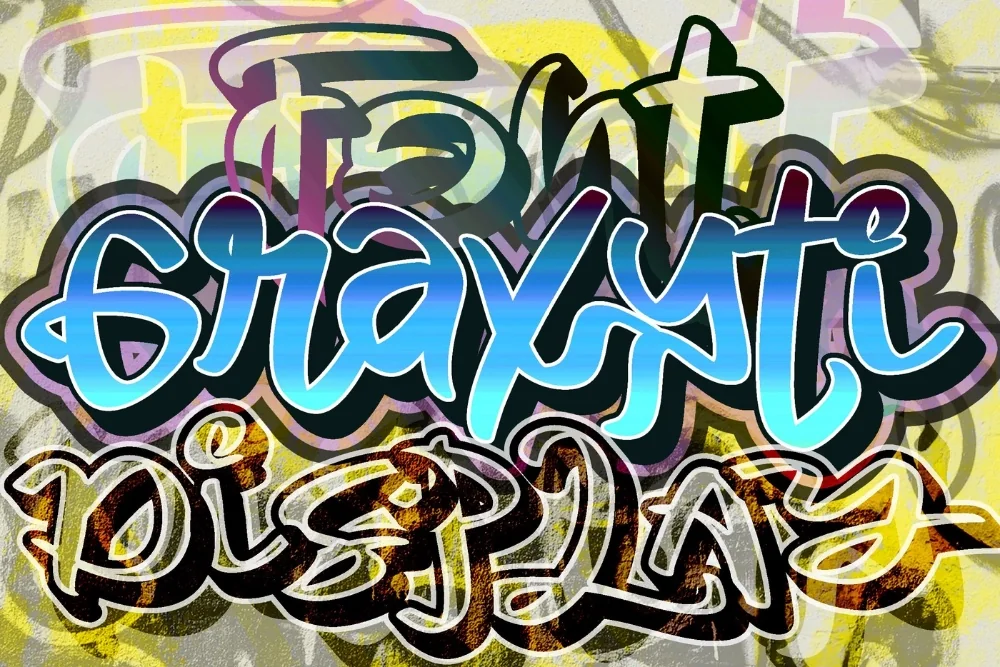
Angular Throw-Up Font
There is no shortage of options when you search for a throw up graffiti font, so here is precisely what makes this one different. Quick two-colour throw-up shapes translated into a full alphabet. Rough by design, and proud of it.
Shapes are simplified down to a handful of straight edges per character, the way a throw-up is painted fast with minimal detail. Corners are blunt and joins are open.
Great for sticker sheets, zines, protest-style posters, and rough-edged social graphics.
Give it room. Crowding this kind of alphabet against the edge of a layout wastes the shapes, and a generous margin does more for the design than any extra effect.